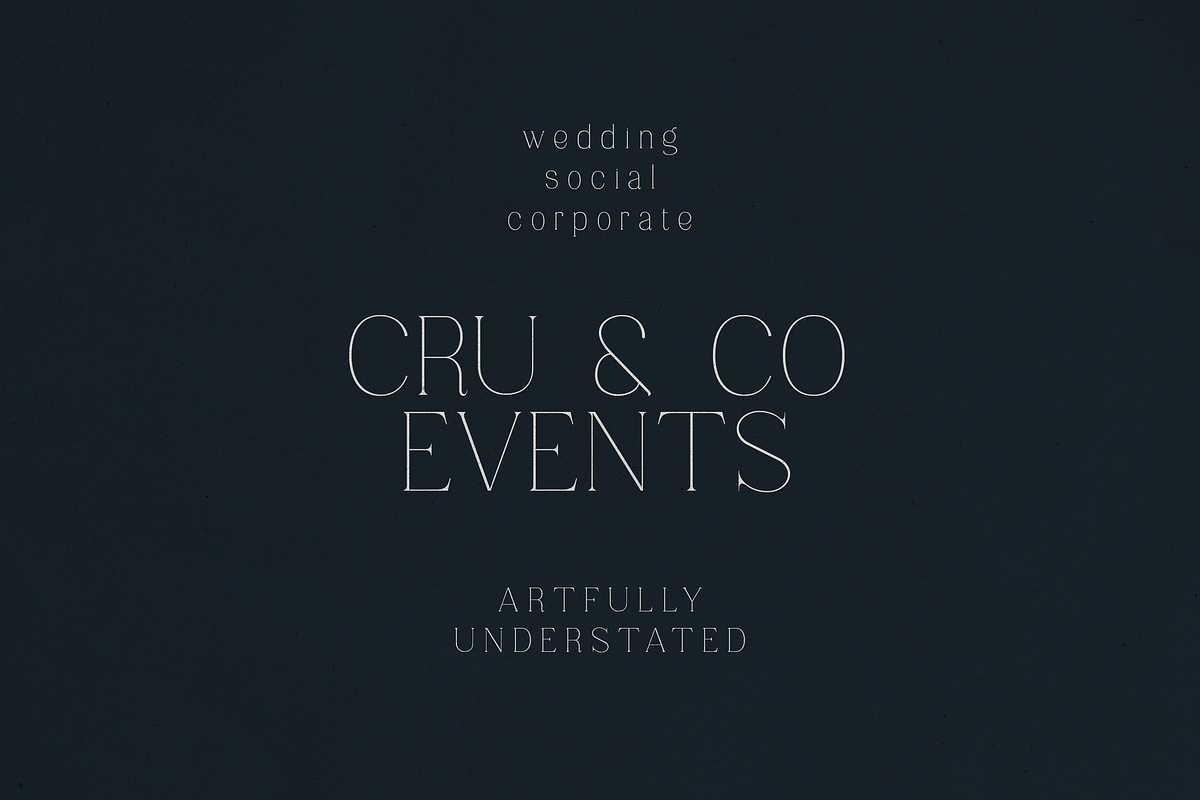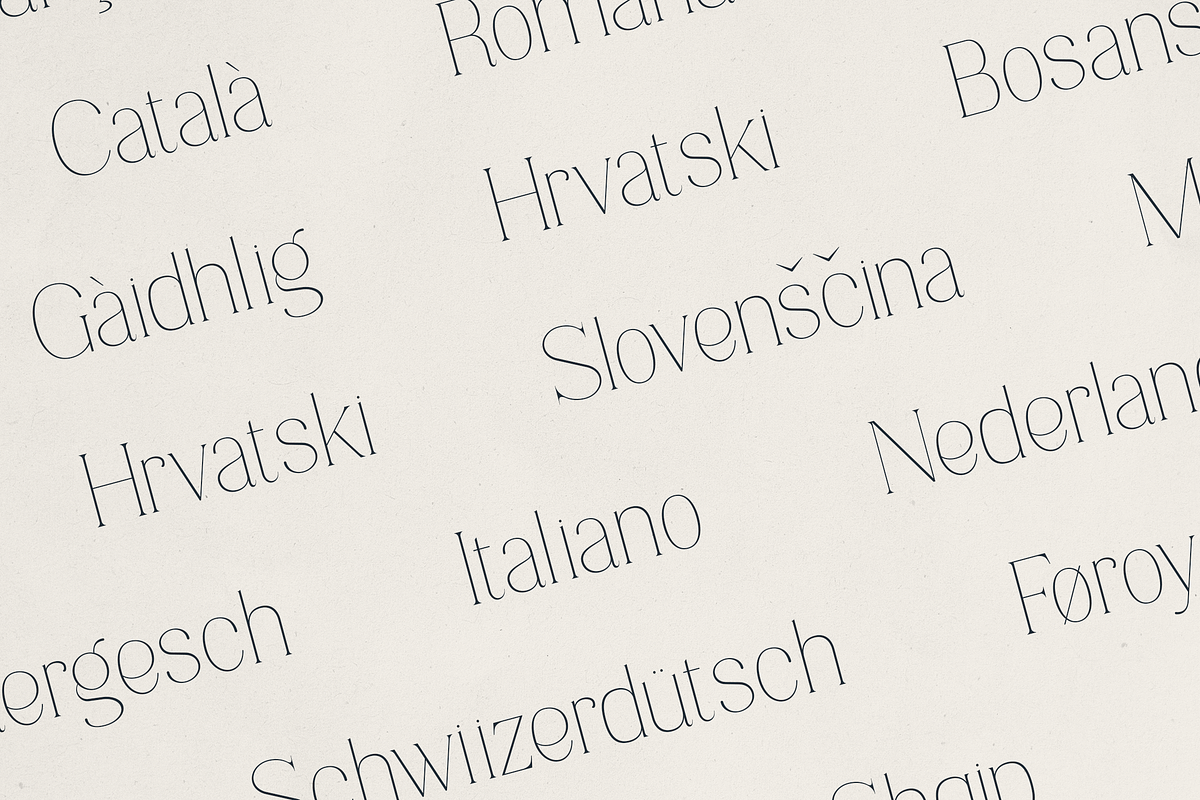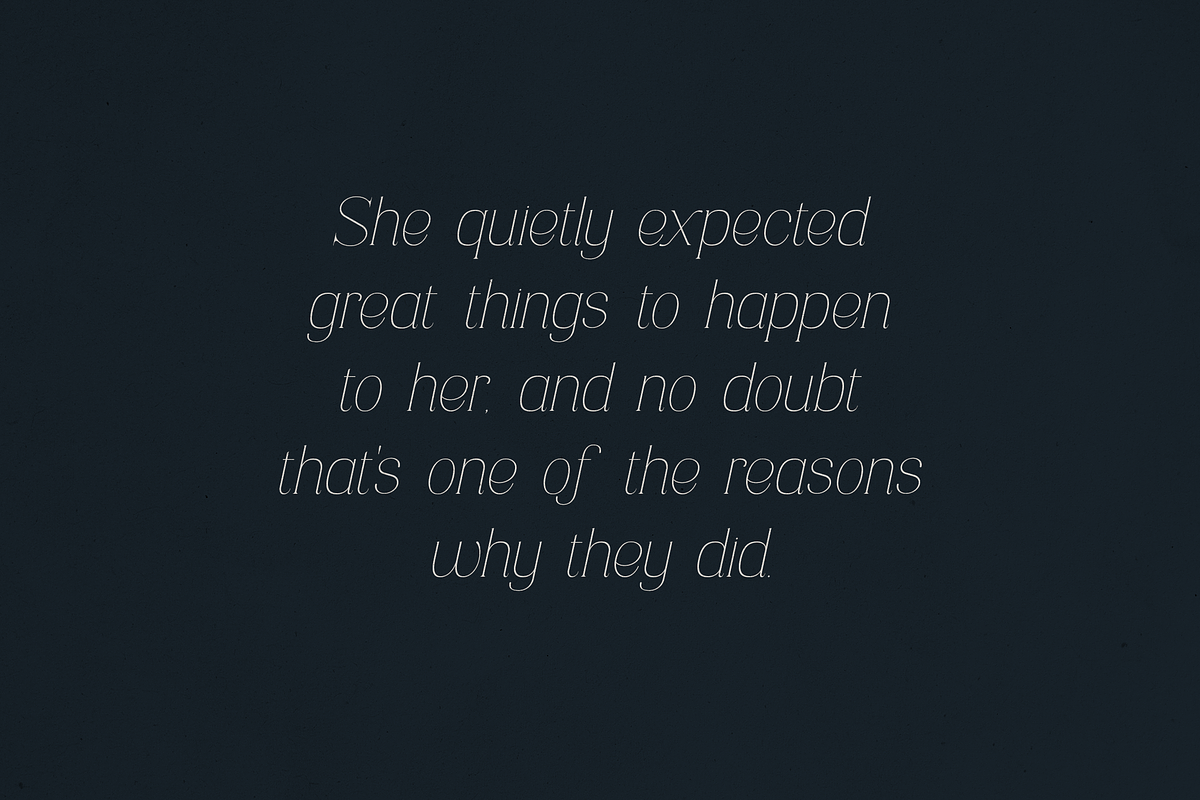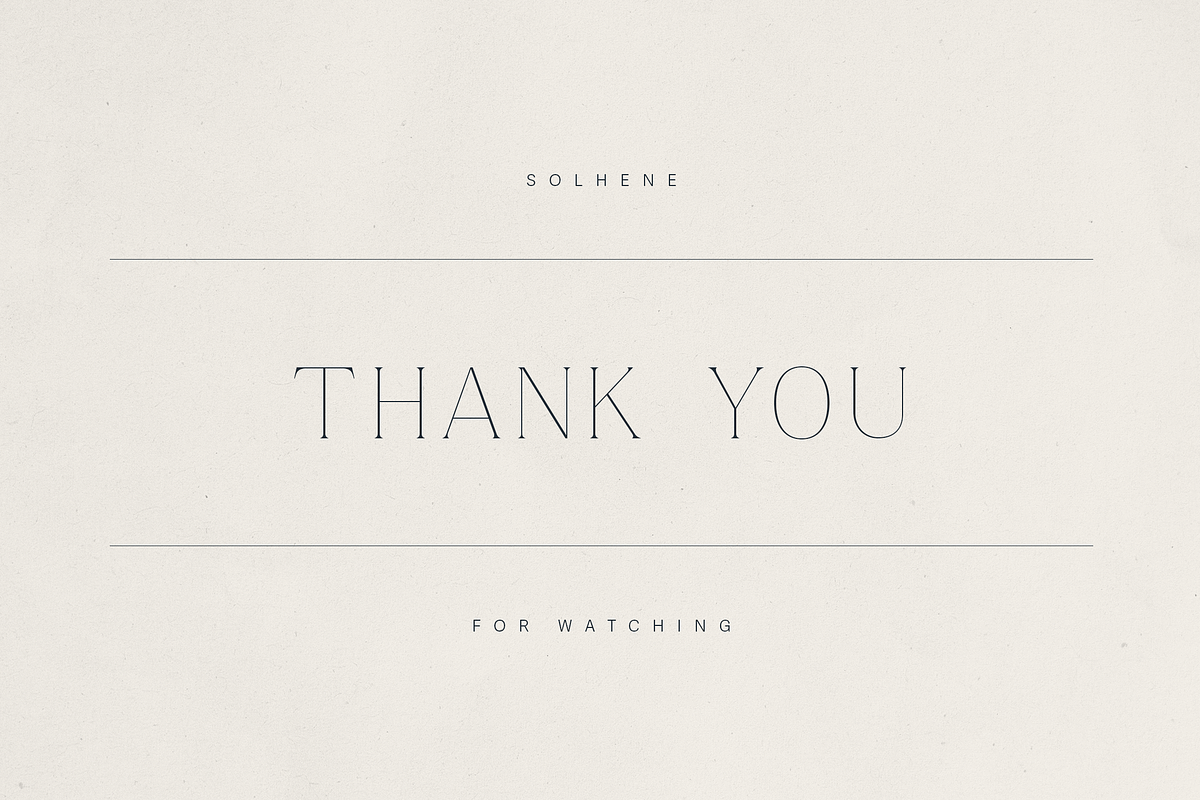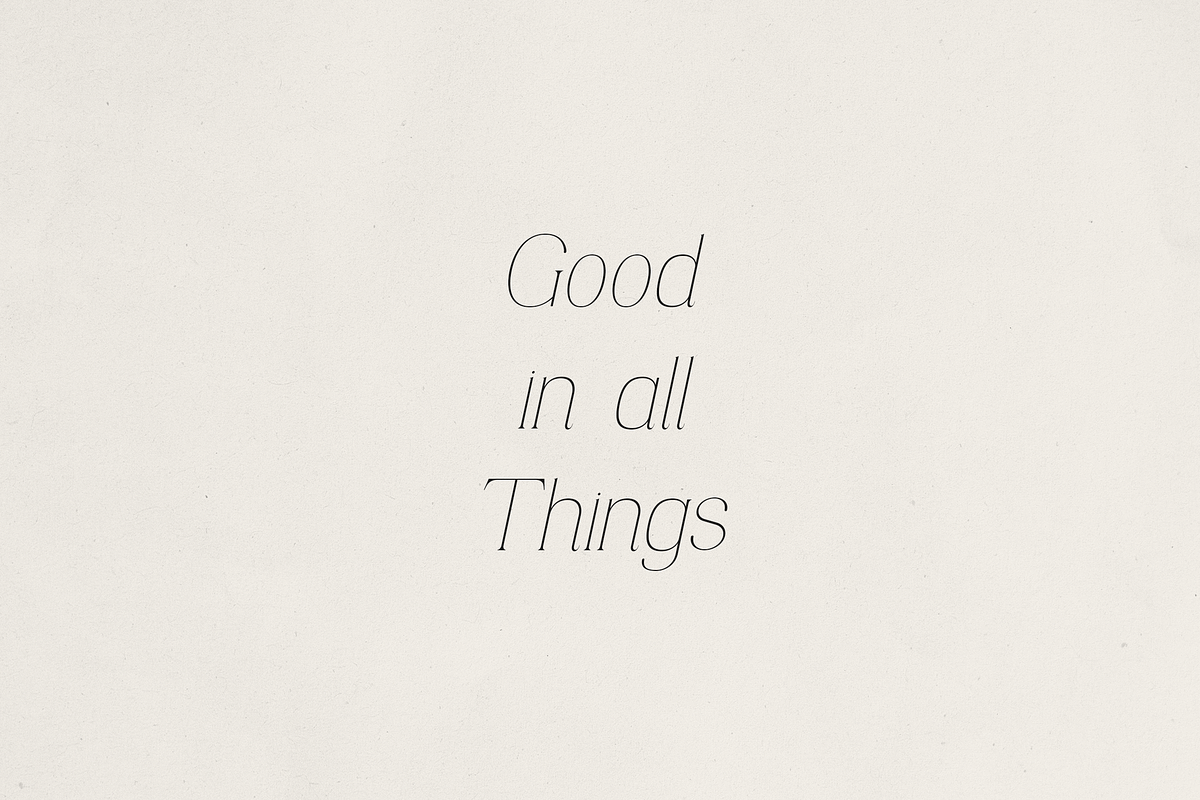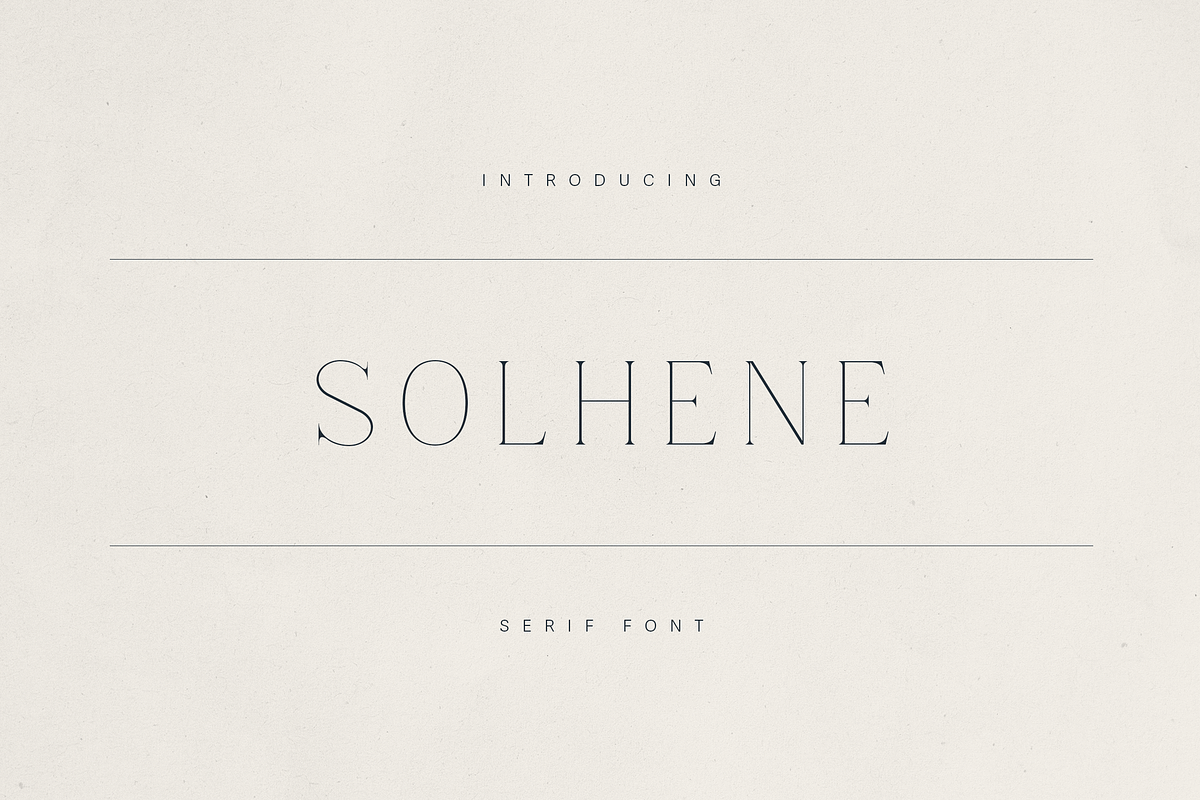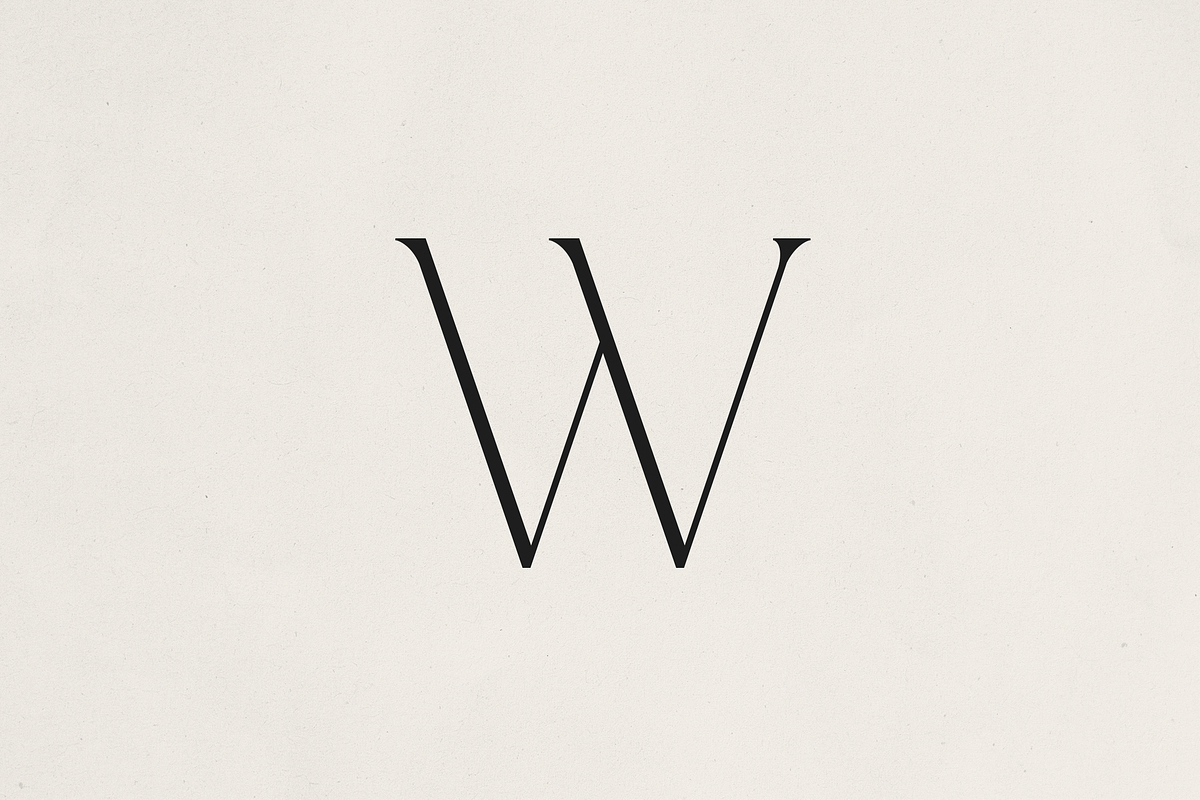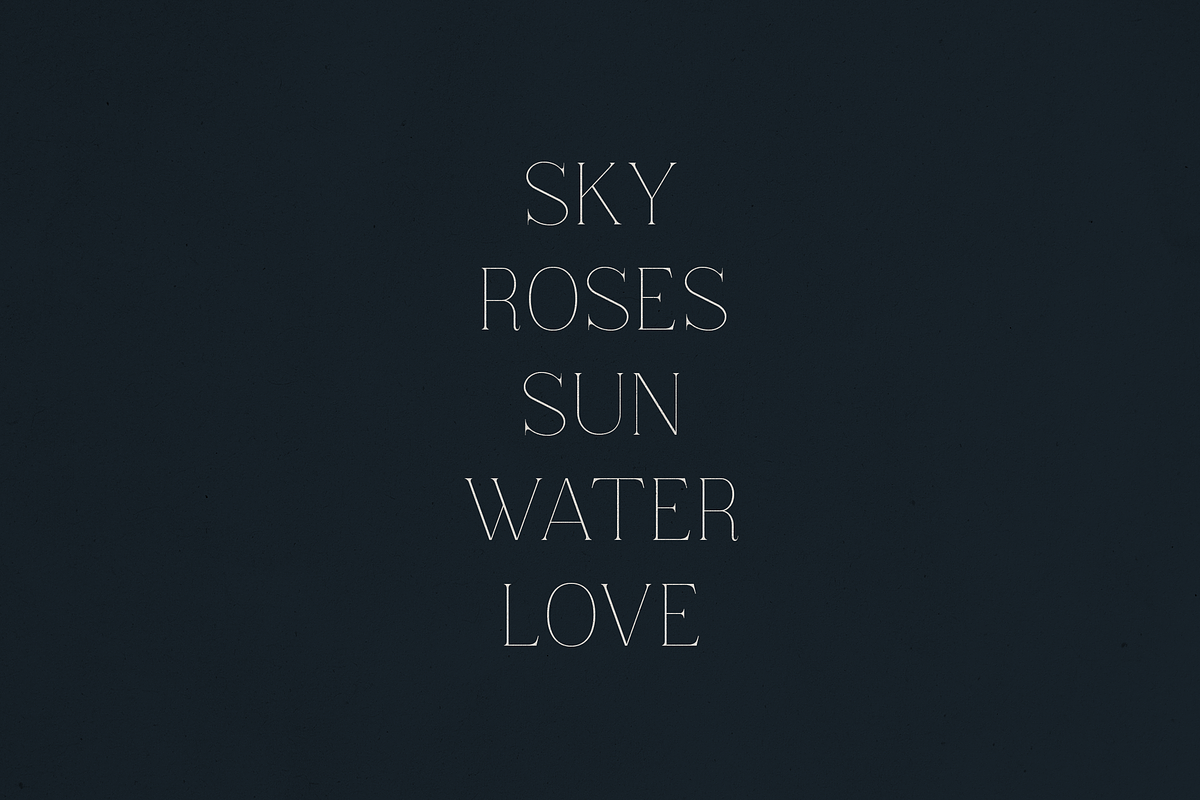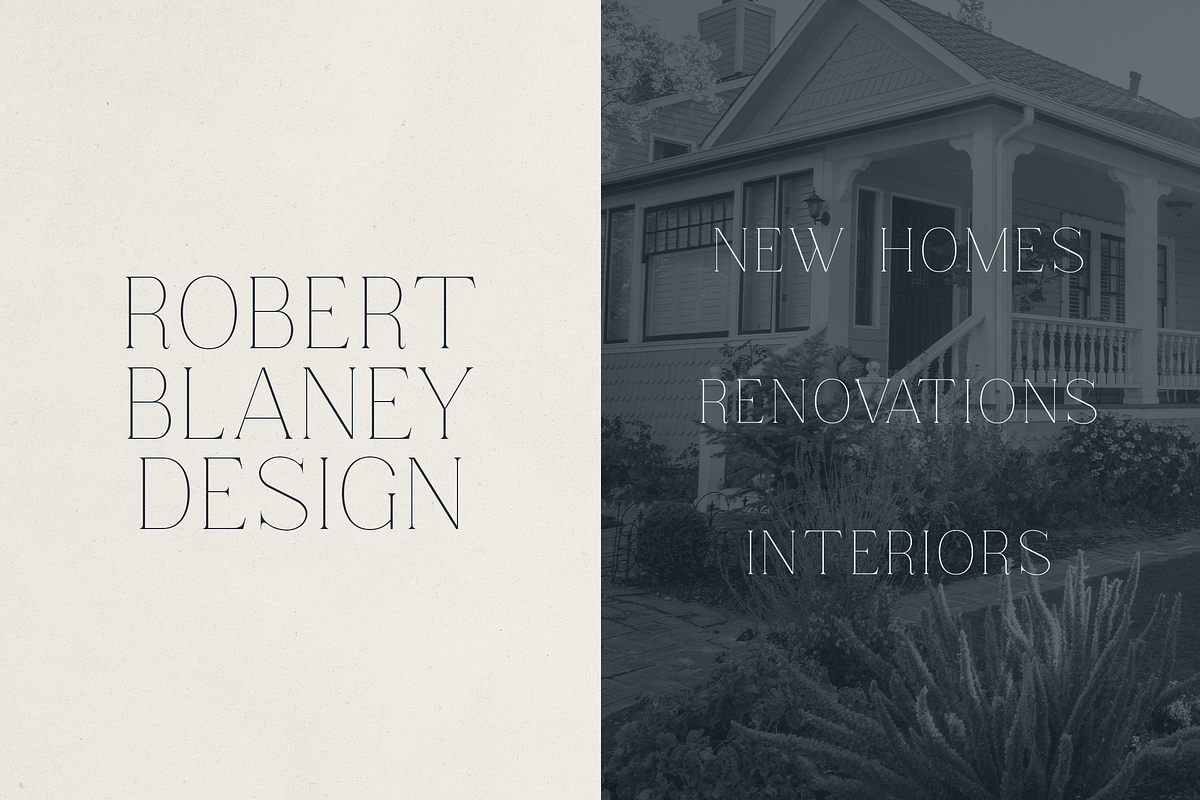
Solhene – A Sophisticated Serif Font
Solhene – A Sophisticated Modern Serif Font for Elegant Branding and Editorial Design
Solhene is a refined serif typeface that blends classic elegance with contemporary minimalism. Designed with high contrast strokes, delicate curves, and sharp serifs, Solhene exudes sophistication while remaining highly legible. This timeless font is perfect for upscale branding, luxury packaging, magazine headlines, interior design studios, event planners, and creative professionals who value understated beauty and precision.
Solhene supports over 80 languages and includes a full set of uppercase and lowercase letters, numerals, punctuation, and multilingual glyphs. It also features a soft italic companion that brings a graceful tone to quotes, taglines, and body copy.
Whether you're crafting a wedding invitation, launching a boutique brand, or designing editorial layouts, Solhene adds a subtle yet striking voice to your typography.
- Luxury branding & identity
- Wedding stationery
- Editorial design
- Fashion & lifestyle blogs
- High-end product packaging
- Elegant serif style with fine details
- Full language support (Latin-based alphabets)
- Uppercase, lowercase, numerals, and punctuation
- Modern and italic styles included
- Ideal for both print and digital applications